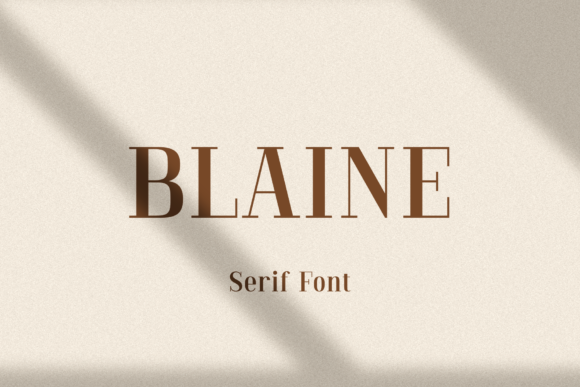
Enter the world of Blaine Font, a serif font that effortlessly blends simplicity and sophistication. Crafted by the renowned Pasha Larin, this font captivates with its clean and casual design, whispering elegance into every word it graces. With Blaine Font, your words will dance across the screen, leaving a trail of beauty and impact.
Blaine Font possesses an innate charm that makes it the perfect choice for paragraph text. Its letters, delicately arranged with precision, create an enchanting visual rhythm that invites readers to immerse themselves in your content. Whether you're crafting a timeless novel, an informative blog post, or an enticing marketing campaign, Blaine Font will elevate your words, transforming them into a symphony of visual delight.
This serif font's versatility knows no bounds. Its understated beauty shines in both formal and non-formal settings, making it the ideal companion for a diverse range of projects. Unleash your creativity and let Blaine Font bring life to your designs, whether you're creating eye-catching logos, captivating social media posts, or stunning website layouts.
Blaine Font's clean aesthetic and exceptional legibility make it a reader's dream. The letters, crafted with meticulous attention to detail, ensure that every word is crystal clear, enhancing the reading experience and leaving an indelible impression on your audience.
Indulge in the beauty of Blaine Font and unlock a world of creative possibilities. Let your words take flight and soar with this exceptional font, transforming your digital presence into a captivating tapestry of visual splendor. Download Blaine Font today and embark on a typographic journey that will leave you spellbound.